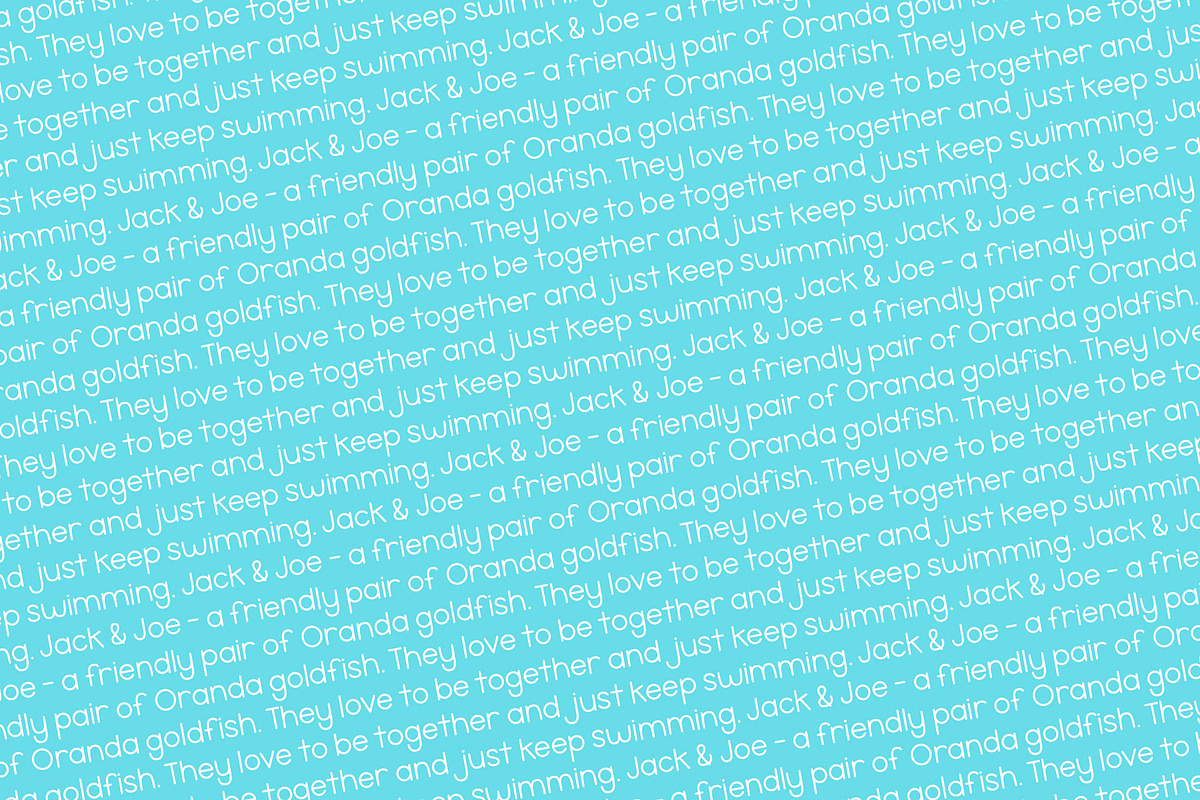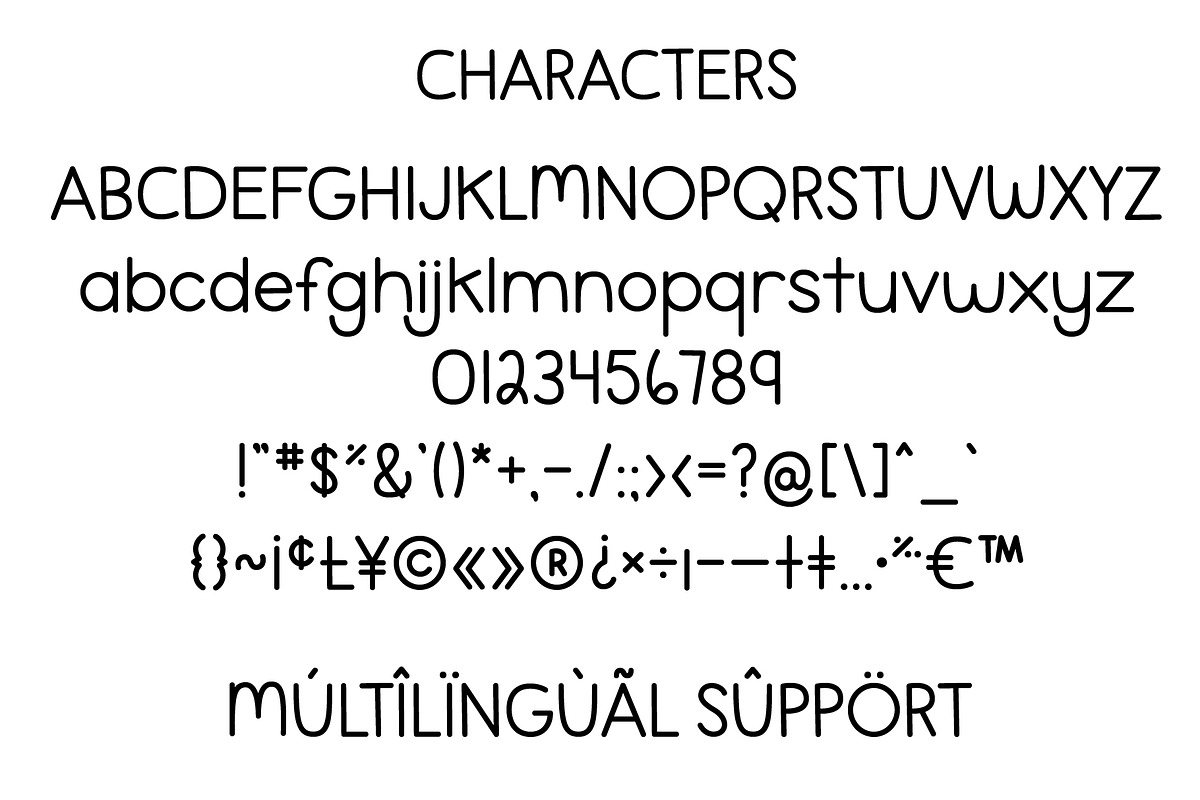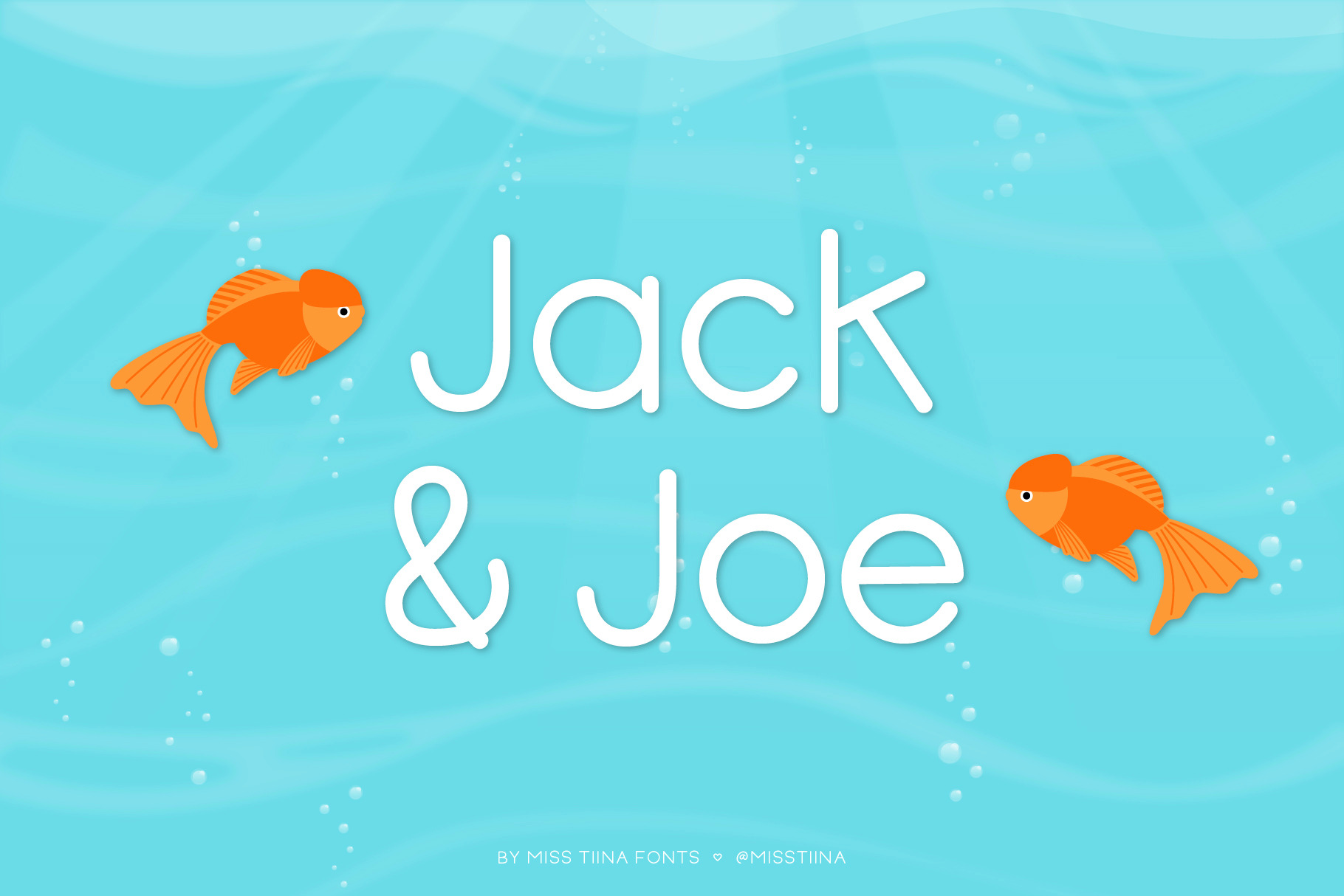
Jack & Joe Font
Jack & Joe is a cute font named after two of my sweet Oranda goldfish, perfect for paragraph text, labels, stationery, titles and much more!